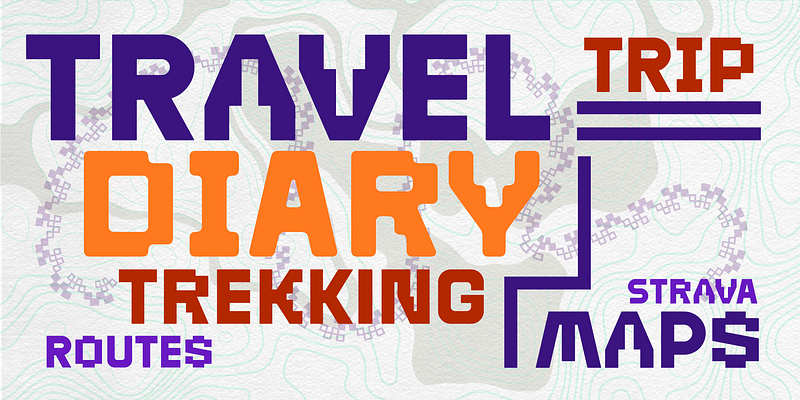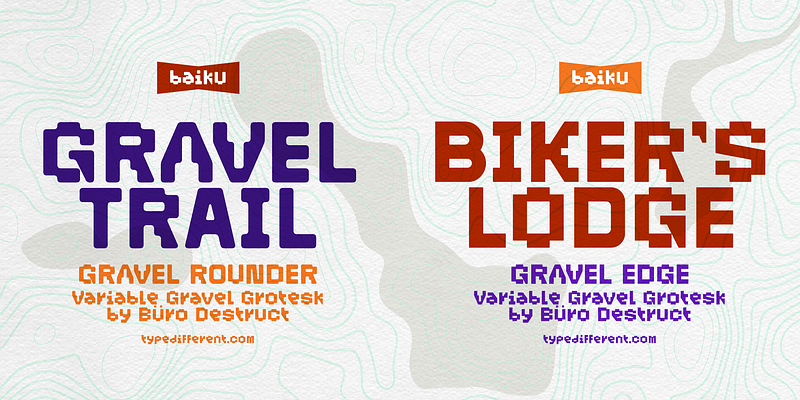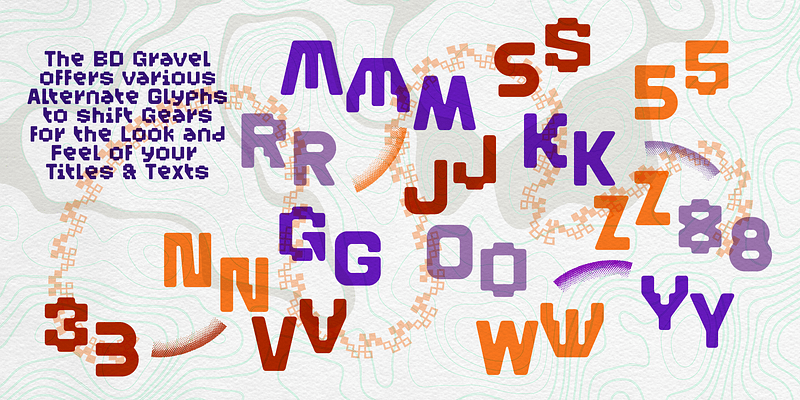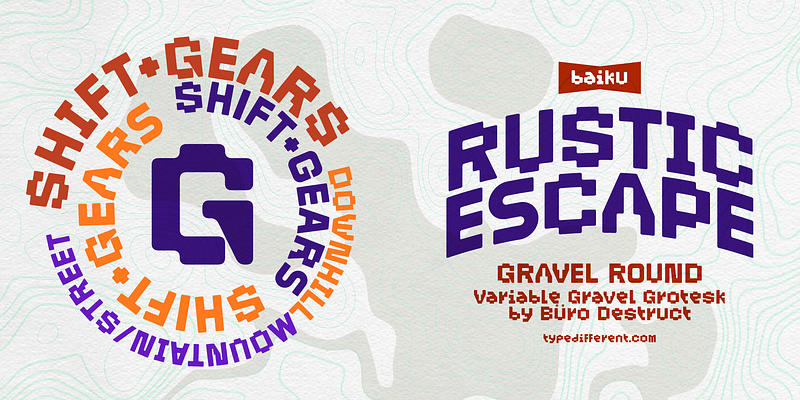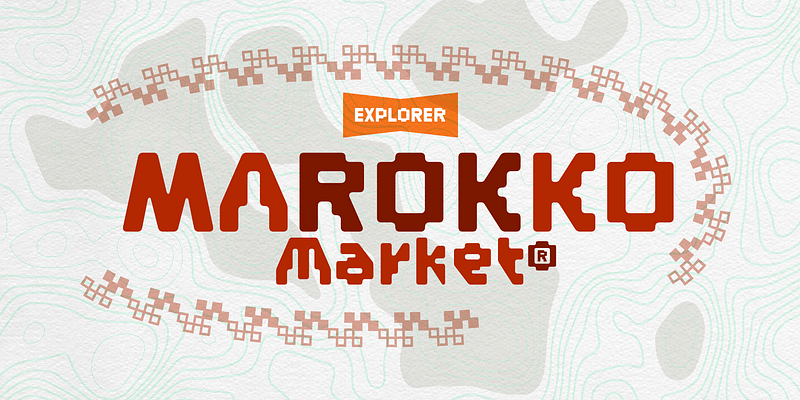
The BD Gravel-VF typeface is a bold, modern sans serif built for motion and discovery. Inspired by the spirit of biking, cycling, and outdoor exploration, it captures the rugged confidence of the open road. With a rich set of alternates and three distinct styles—Edge, Round, and Rounder—BD Gravel adapts to any terrain. Its variable font lets you fine-tune the roundness and softness of the contours, so your design can shift gears as smoothly as your ride.